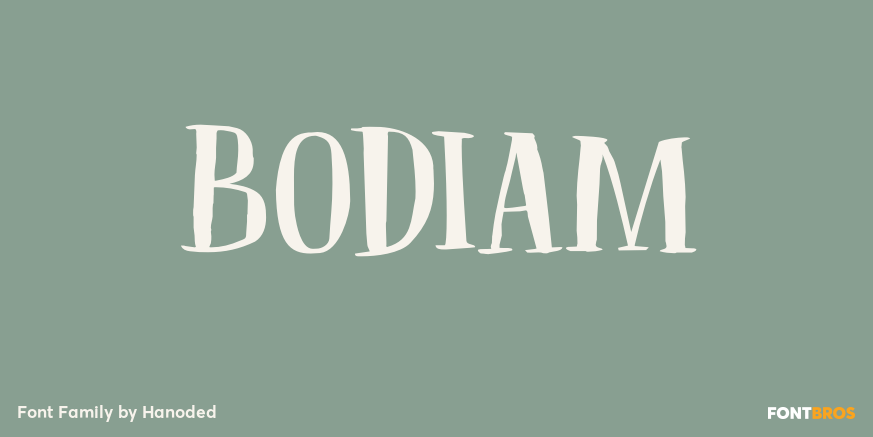
Bodiam
About Bodiam
Bodiam font is a rough didone-ish affair. It is all caps, but you can freely mix upper and lower case. It would be ideal for book covers, posters and maybe even for castles. Comes with a treasure chest of diacritics.